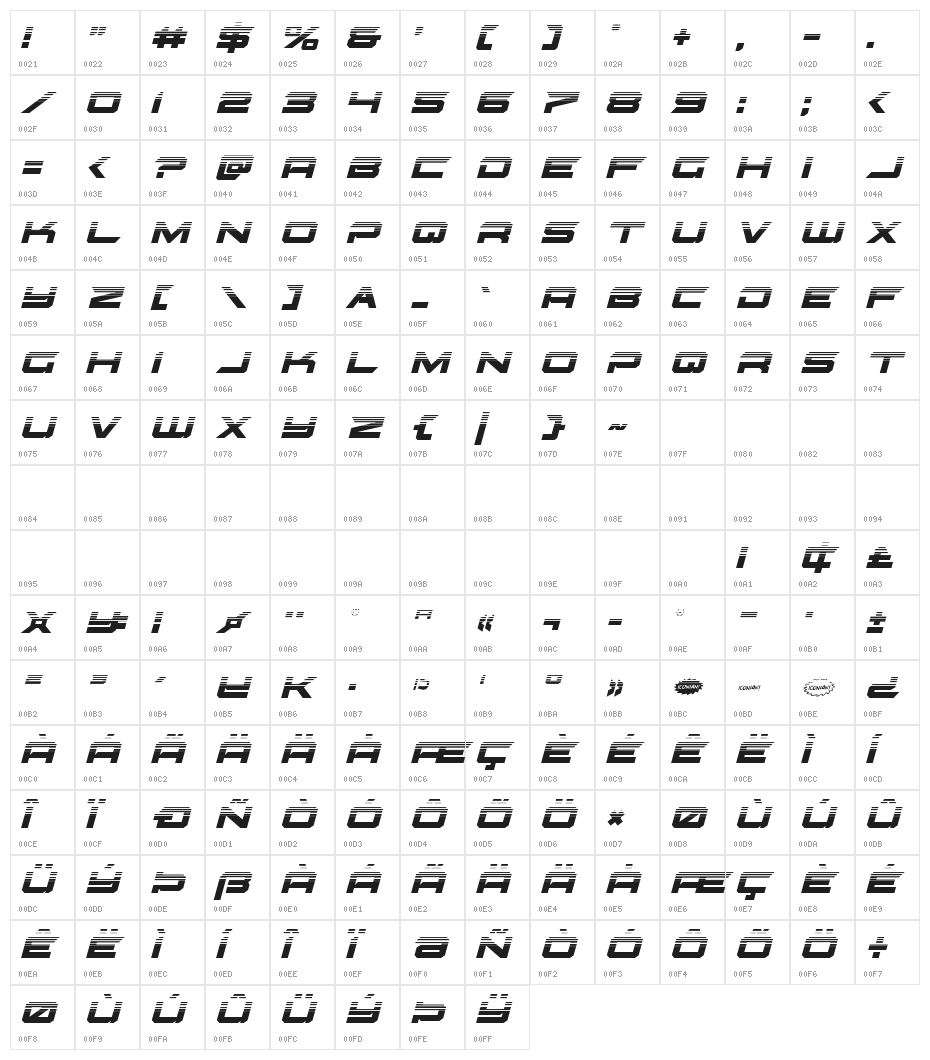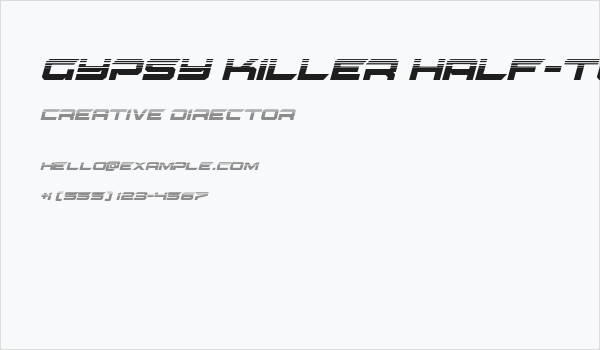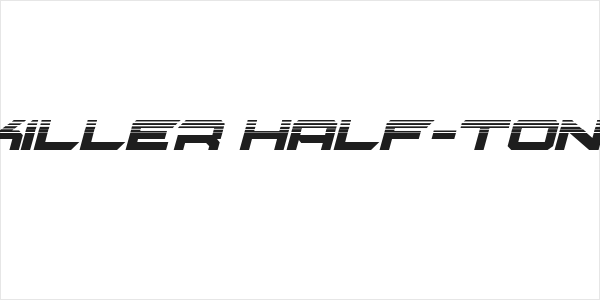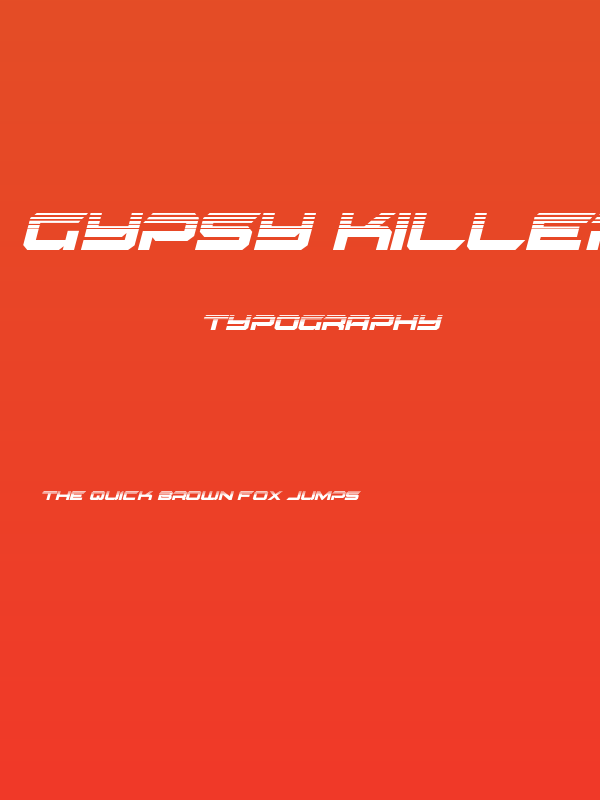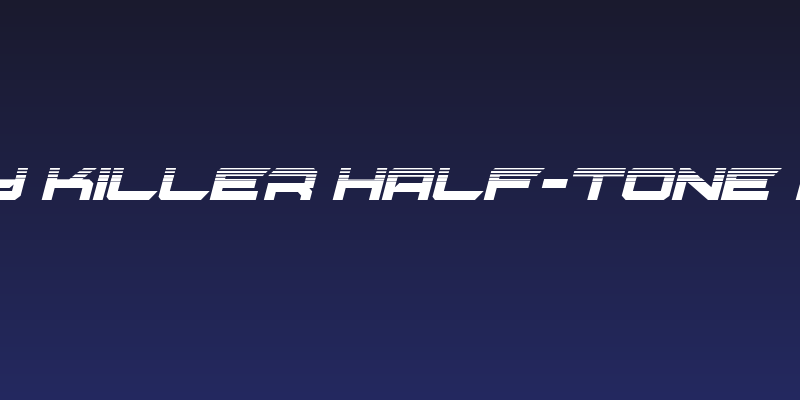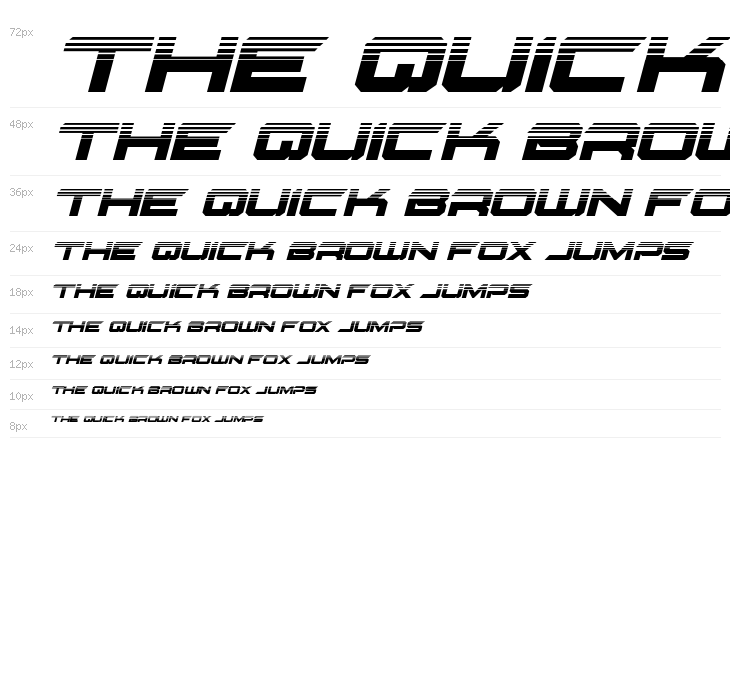
Gypsy Killer Half-Tone Italic Font
Gypsy Killer Half-Tone Italic Description
This font features a bold, futuristic design with a distinct italic slant. Each character is composed of solid, angular shapes with horizontal lines cutting through the upper portion, creating a dynamic, high-tech appearance. The uniformity in the design gives it a cohesive look, while the slanted style adds a sense of motion and speed. The numerals and special characters follow the same design principles, ensuring consistency across all elements. This font is ideal for projects that require a modern, edgy aesthetic.
| Proposed Projects | Ideal for technology branding, sci-fi movie posters, video game titles, and modern advertising campaigns. |